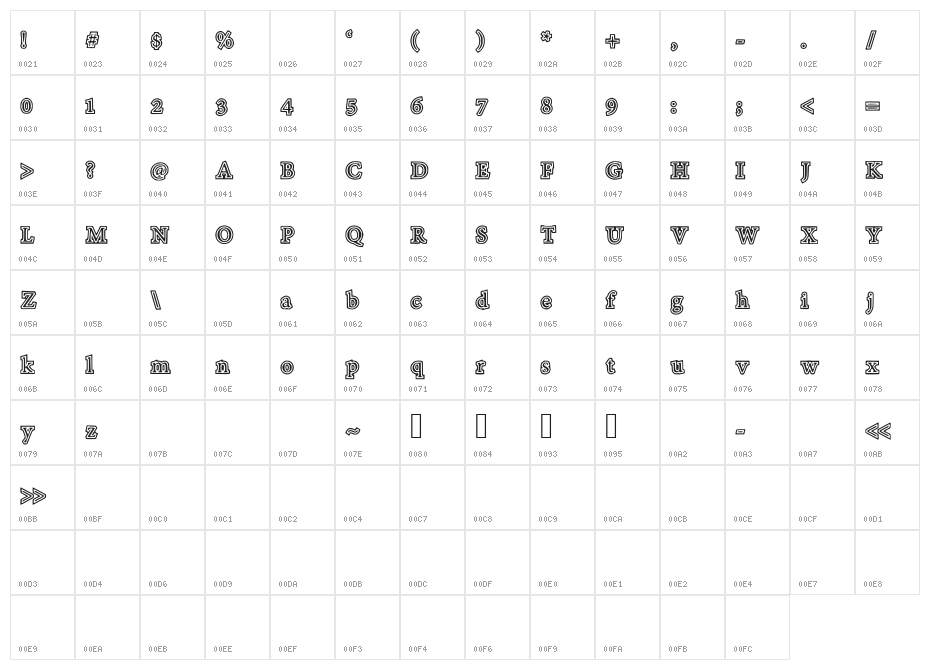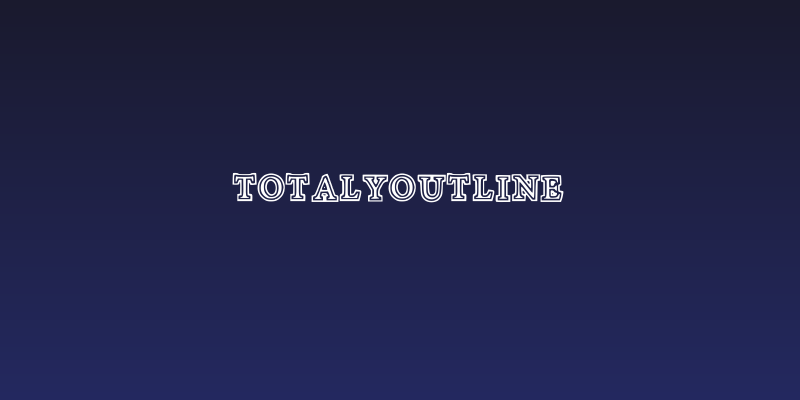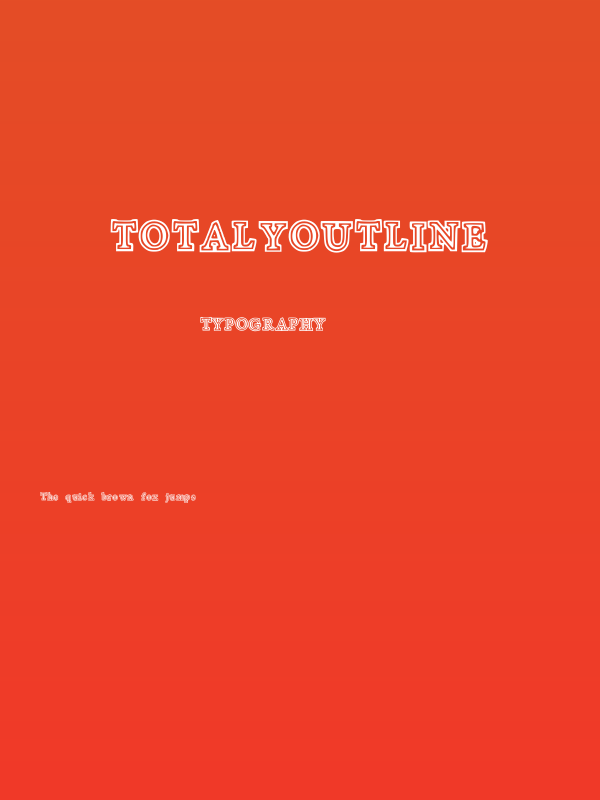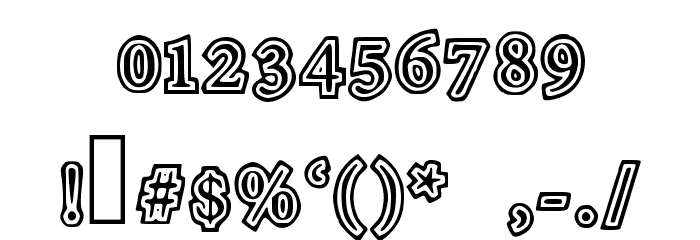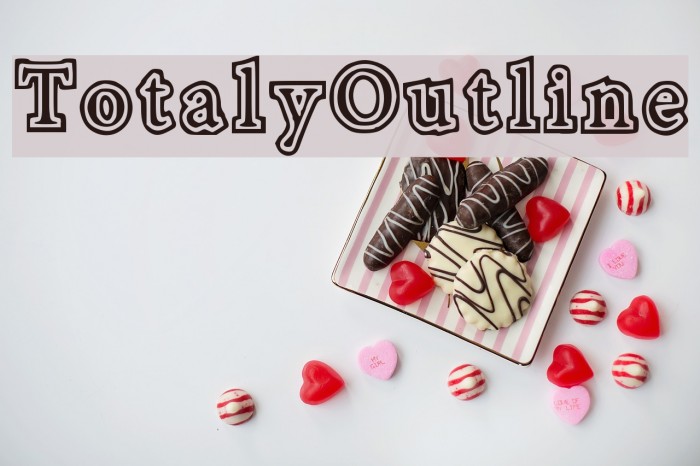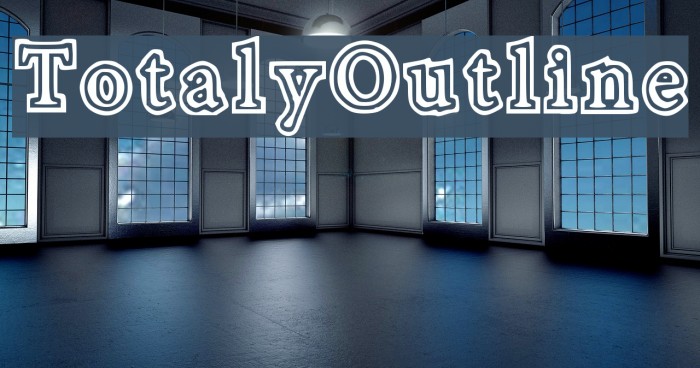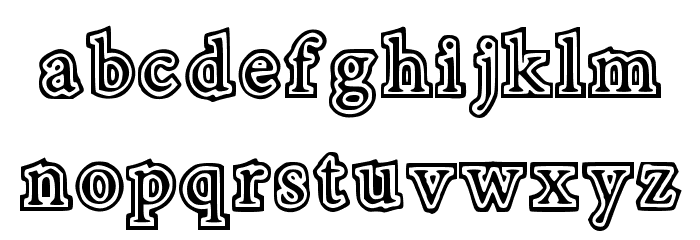
TotalyOutline Font
TotalyOutline Description
This font features a bold, outlined style that gives it a striking and attention-grabbing appearance. The characters are well-defined with a double-layered outline, creating a sense of depth and dimension. The uppercase and lowercase letters maintain a consistent style, with the uppercase being slightly more prominent. The numbers and special characters follow the same outlined design, ensuring uniformity across all elements. This font is ideal for projects that require a bold statement or a decorative touch, as its unique outline makes it stand out in any design.
| Proposed Projects | Ideal for posters, headlines, logos, and any design needing a bold, decorative touch. |